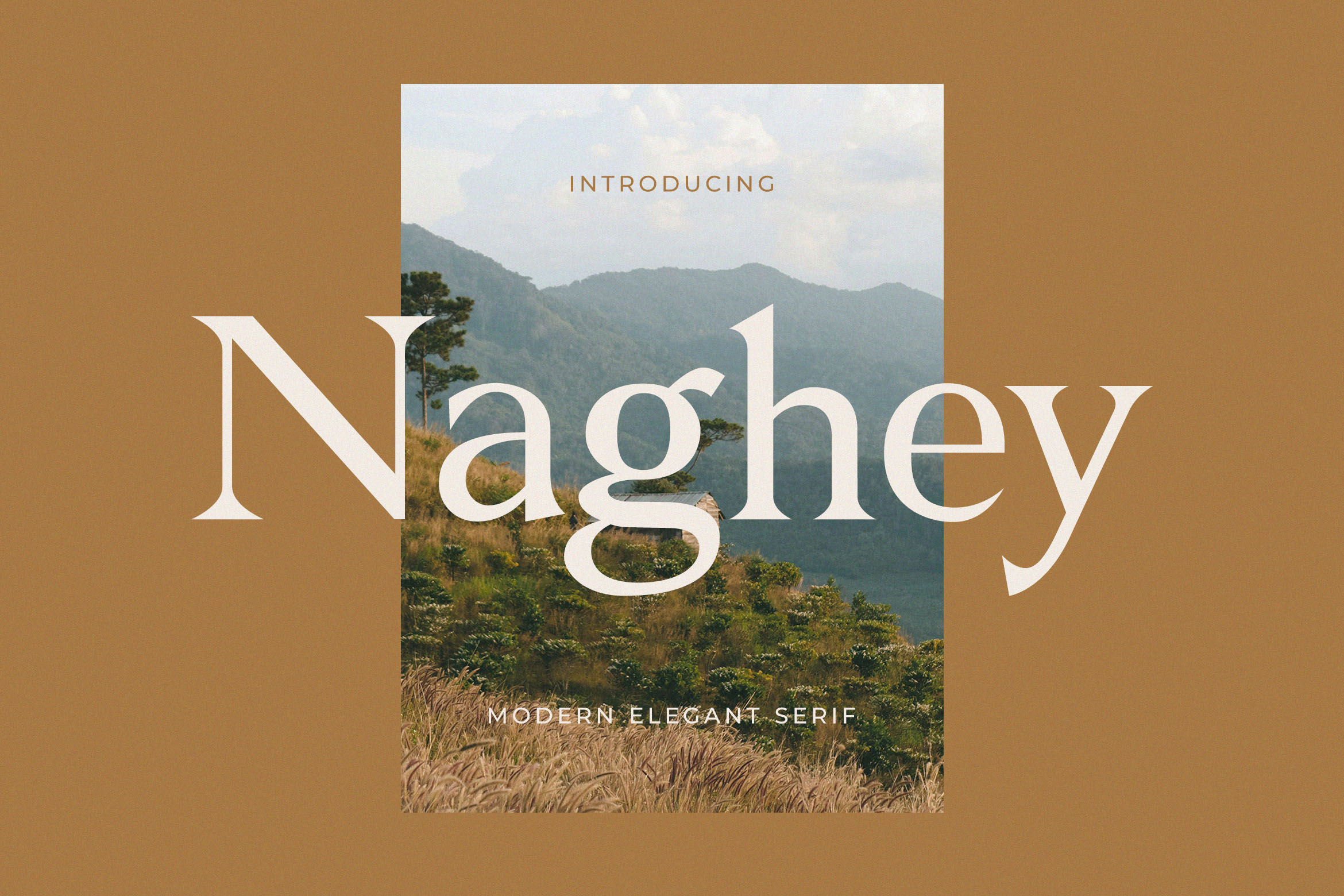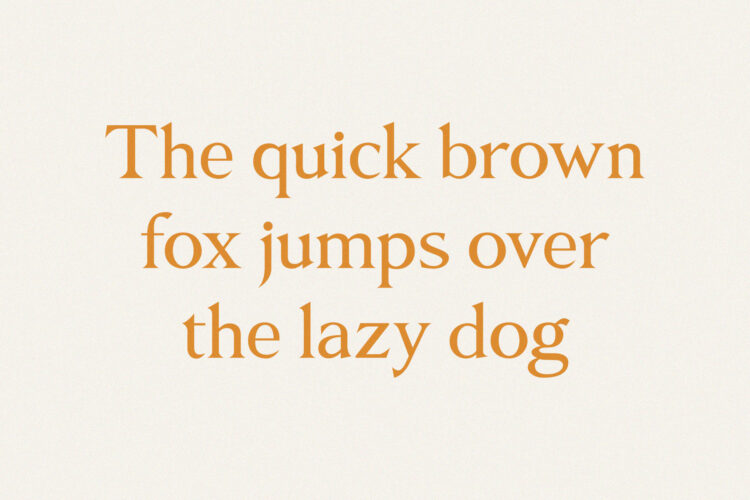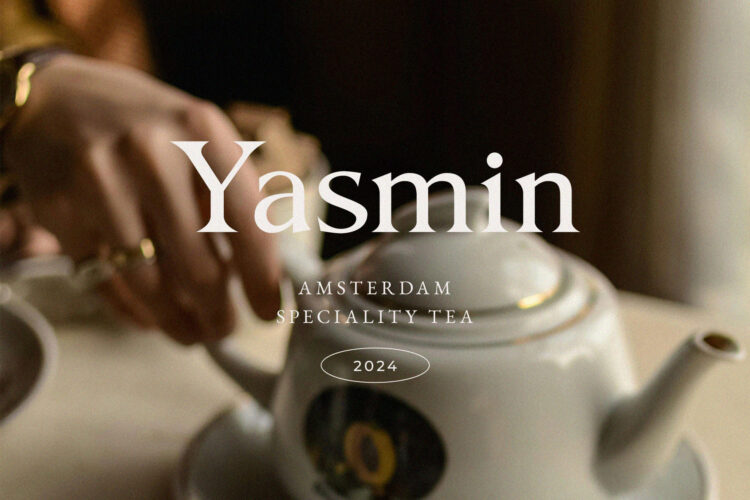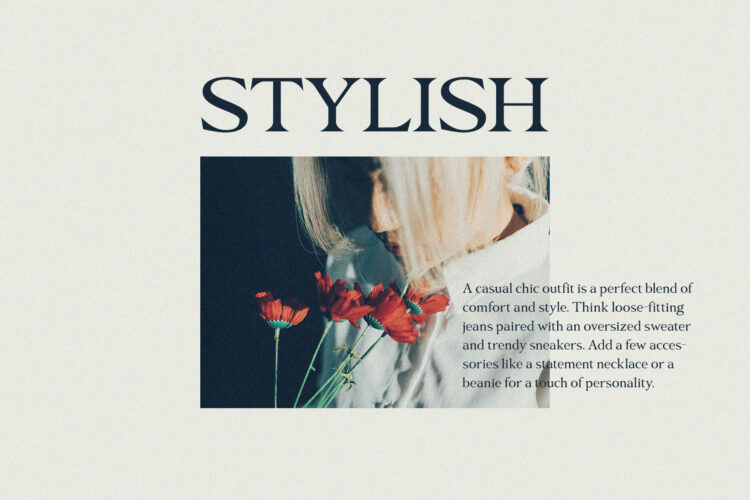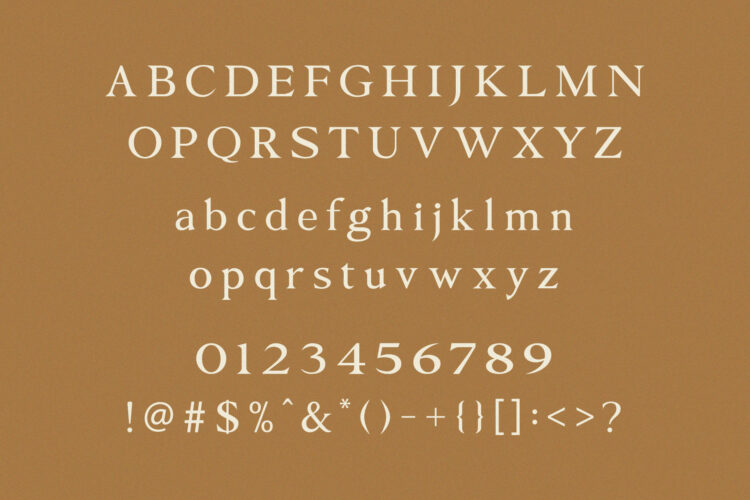
Introducing Naghey – Modern Elegant Serif.
Naghey is a modern and simple font, best used as a display for headings, logos, branding, magazines, product packaging and invitations.